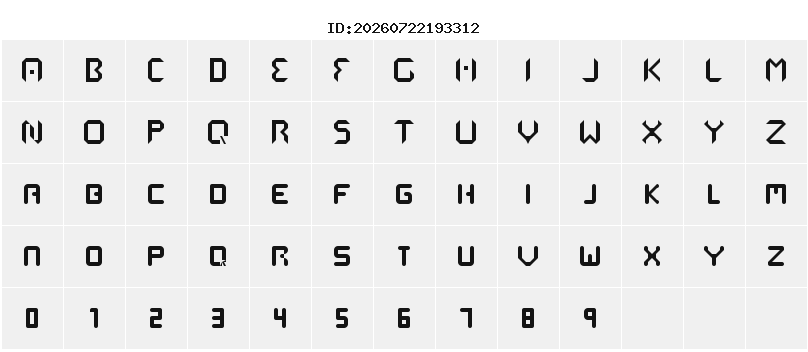
• Font Name: mms start
• Designer: mms420
• Description: “mms start” was built with FontStruct
About mms start.ttf
mms start.ttf is a modern, elegant sans-serif font designed for ultimate readability and visual harmony. Perfect for branding, headlines, web design, and print materials.